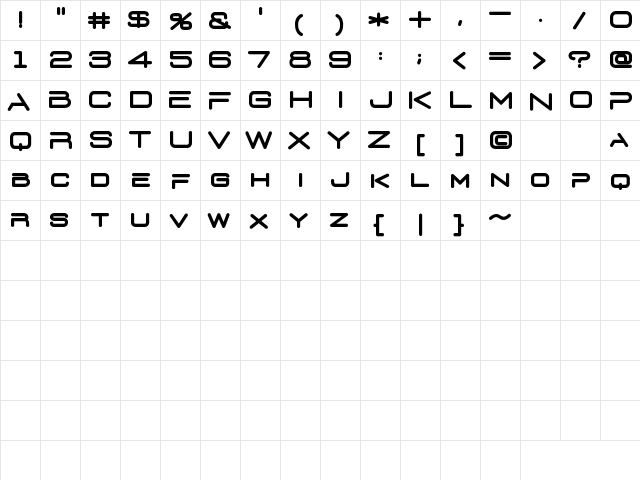
D3 Euronism Bold Regular
Design Context for D3 Euronism Bold Typeface
D3 Euronism Bold takes a measured approach to typography — its balanced proportions and neutral character make it a reliable workhorse for both digital and print work. The heavy weight commands attention and anchors typographic hierarchies.